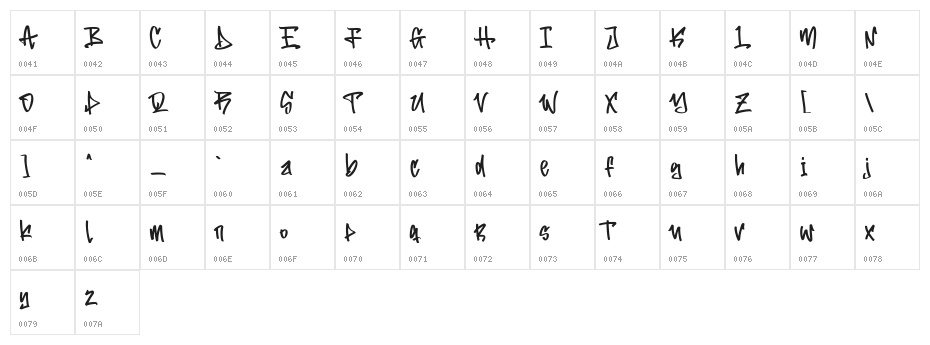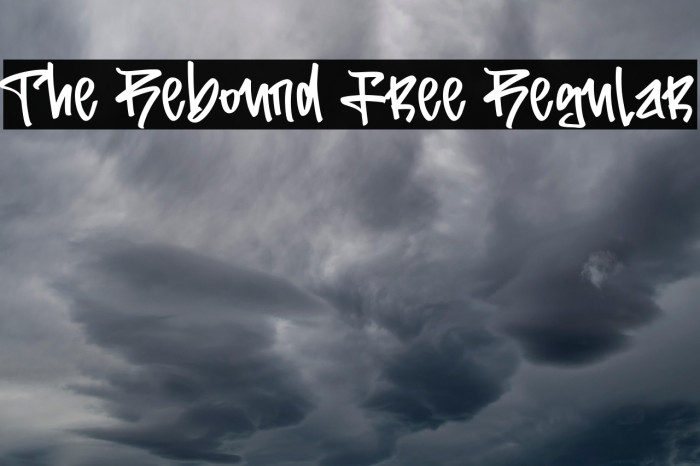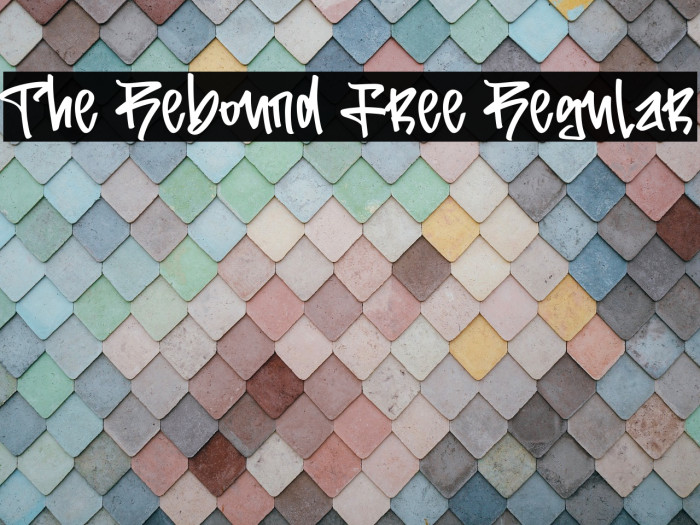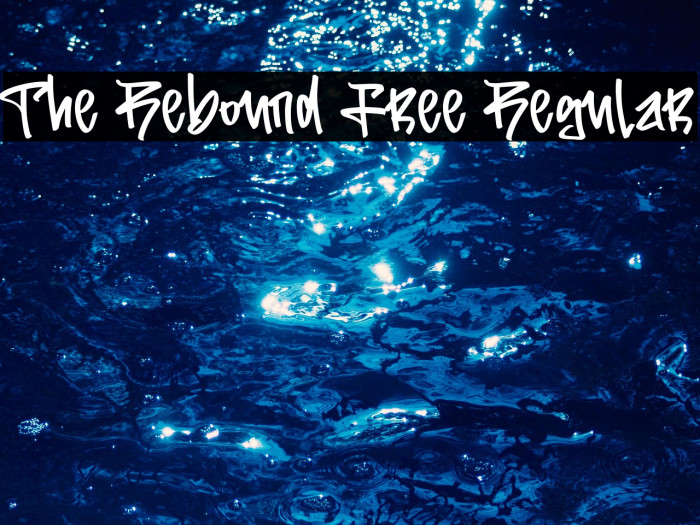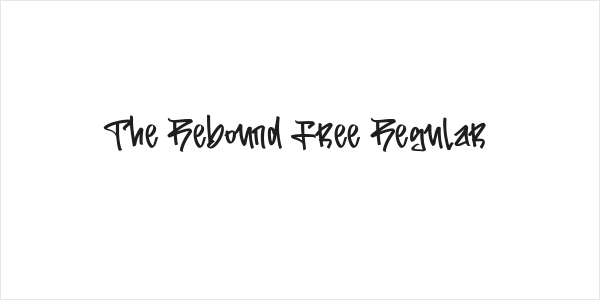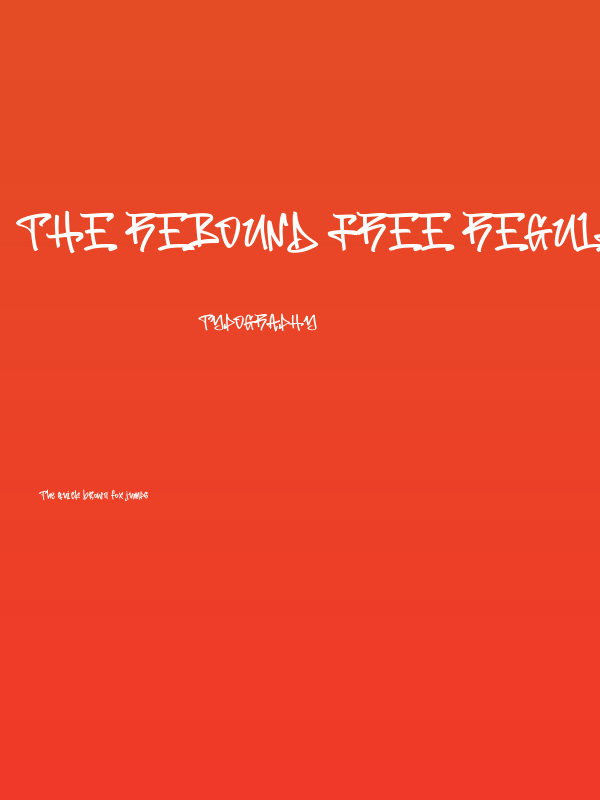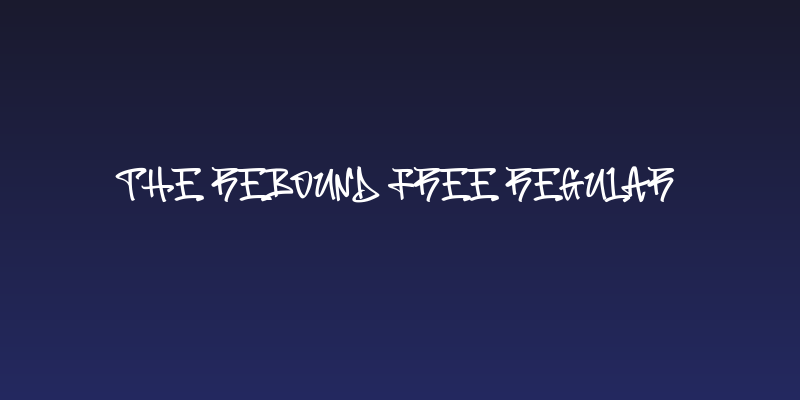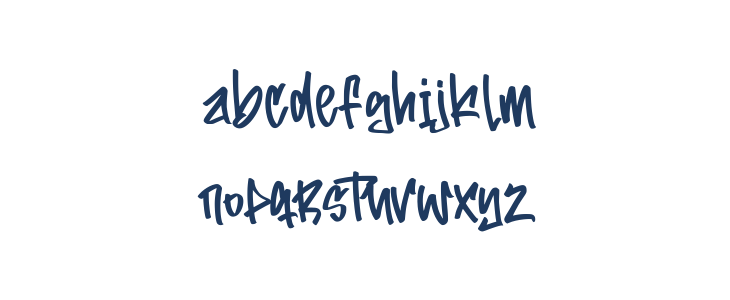
The Rebound Free Regular Font
The Rebound Free Regular Description
This font features a bold and dynamic style with a handwritten appearance, characterized by its thick strokes and playful, energetic curves. The letters are slightly slanted, giving a sense of movement and spontaneity. The uppercase and lowercase characters maintain a consistent style, with exaggerated loops and swashes that add a unique flair. The numbers and special characters are designed to match the overall aesthetic, ensuring a cohesive look across all elements. This font is ideal for projects that require a personal touch or a casual, artistic vibe.
| Use Case | Logos, Posters, Creative projects |
| Proposed Projects | Perfect for graffiti-inspired designs, posters, branding, and creative projects that need a bold, artistic touch. |